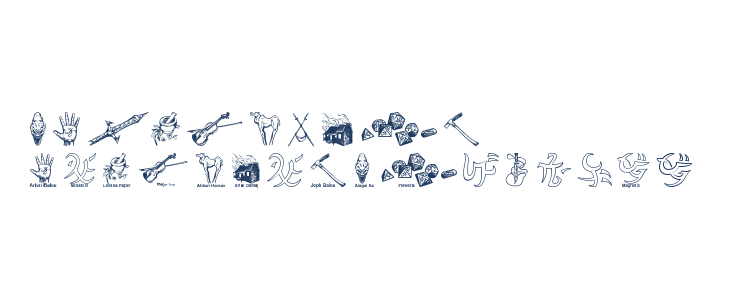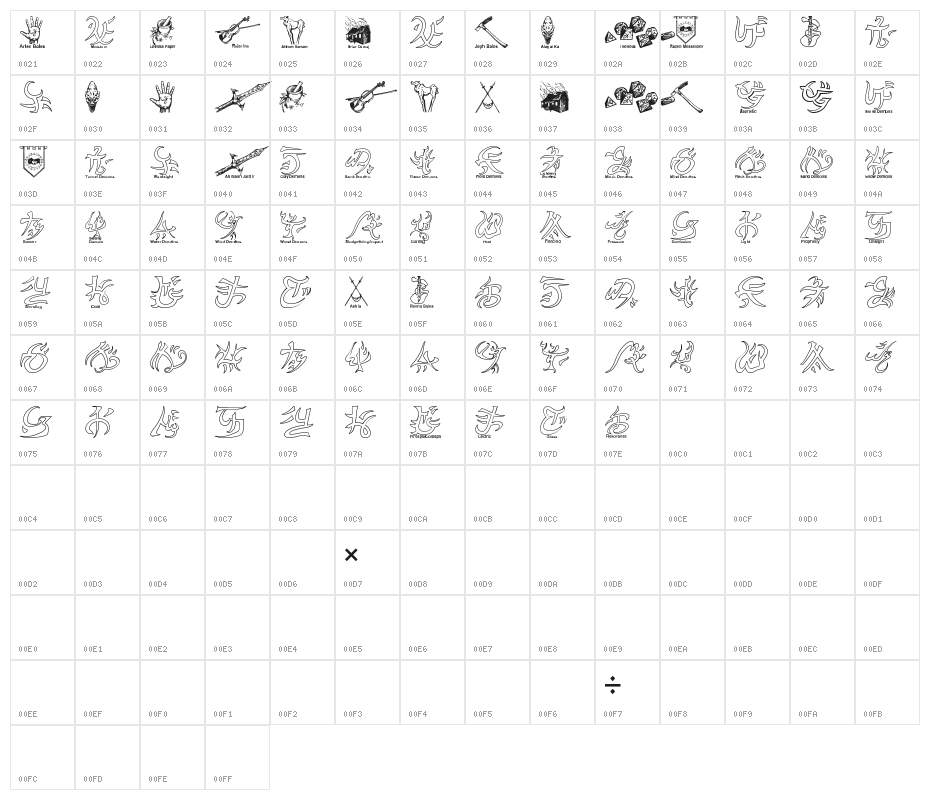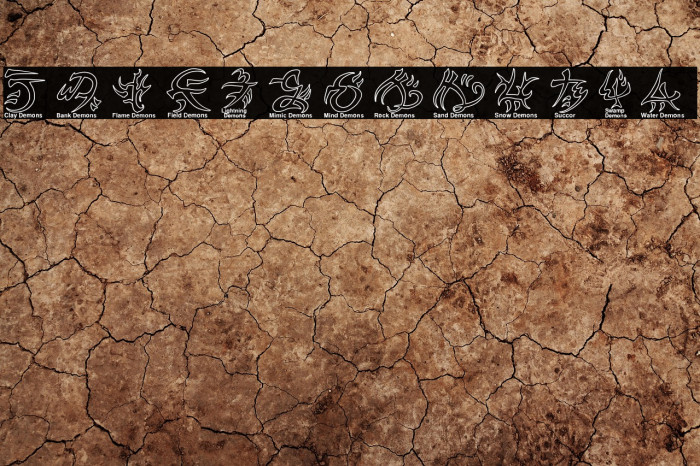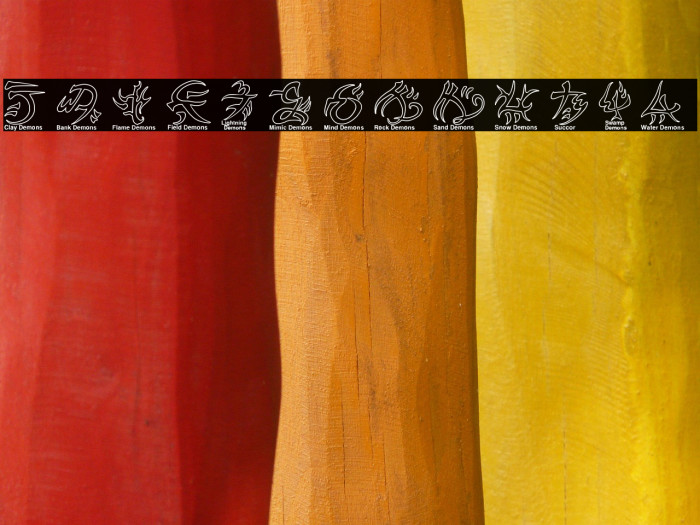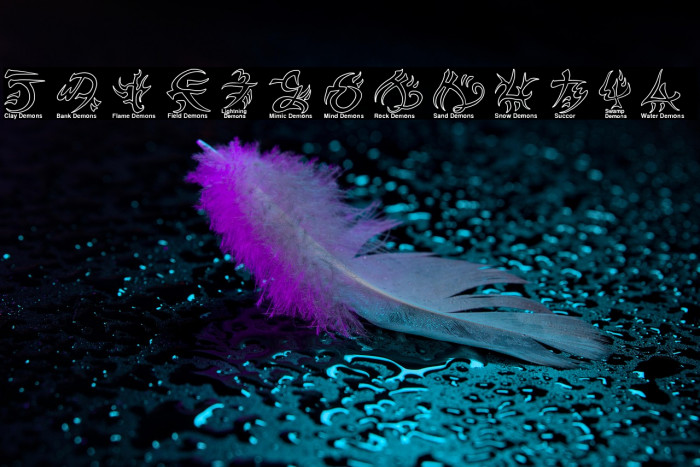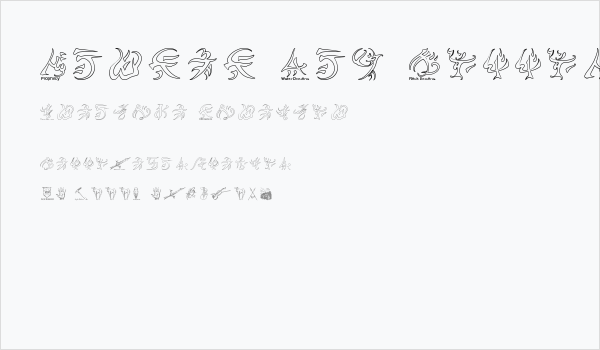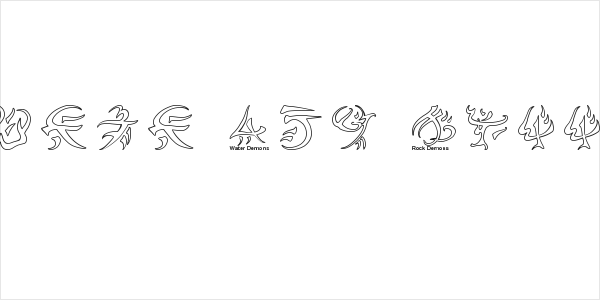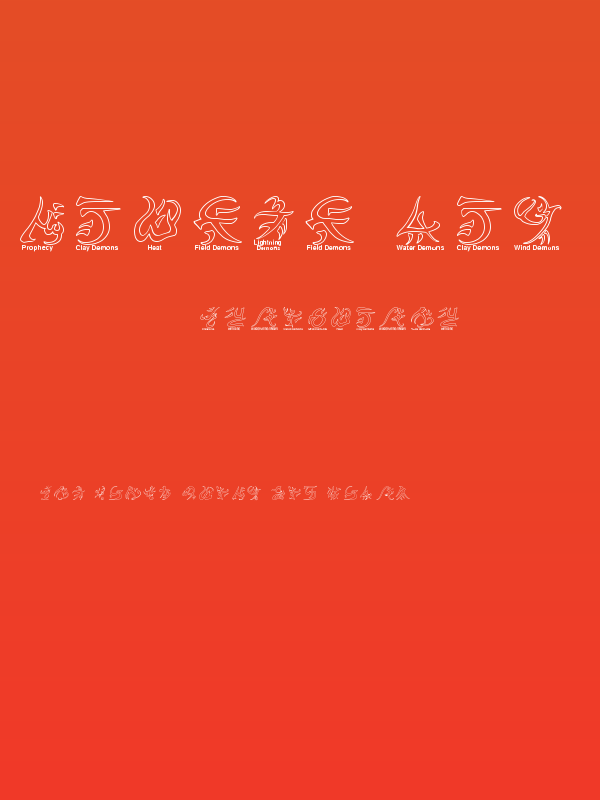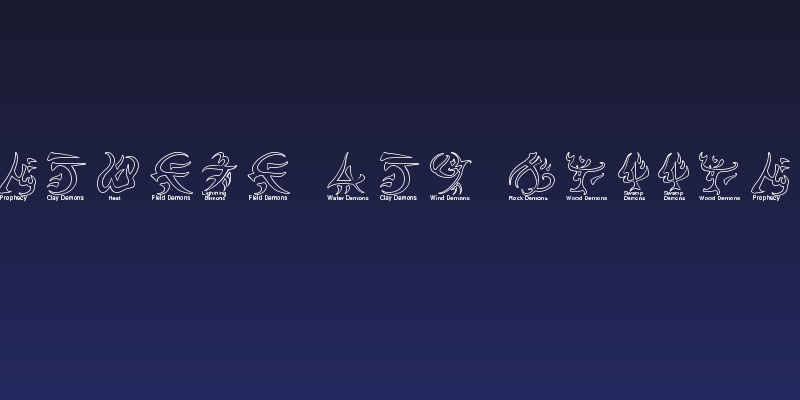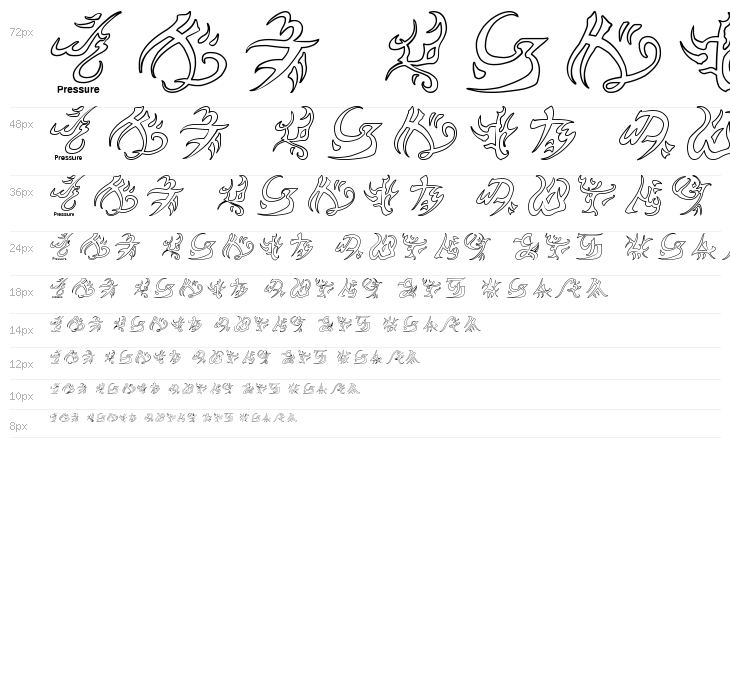
Warded Man Hollow Font
Warded Man Hollow Description
This is not a valid font. The image contains symbols and illustrations that do not correspond to a standard alphabet or numeric system. The characters are highly stylized and appear to be more decorative or illustrative in nature, possibly representing a fictional or artistic script rather than a functional typeface.
| Use Case | Artistic projects, game design, fictional scripts. |
| Proposed Projects | This set of symbols could be used for artistic projects, game design, or fictional world-building where unique scripts are needed. |